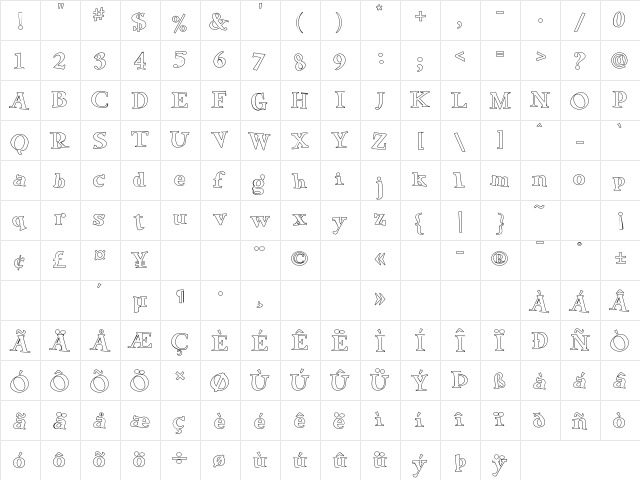
Green Eggs and Spam Outline
Design Context for Green Eggs and Spam Typeface
Green Eggs and Spam is built around its visual character rather than neutral utility — its distinctive forms are designed to make an impression at display sizes.
Font Pairing: Pair with a clean neutral sans-serif for body copy to let Green Eggs and Spam's character lead without overwhelming the composition.
Pro Tip: Use Green Eggs and Spam exclusively at display sizes — it was designed to be seen, not read at length. Let a neutral companion handle body copy.